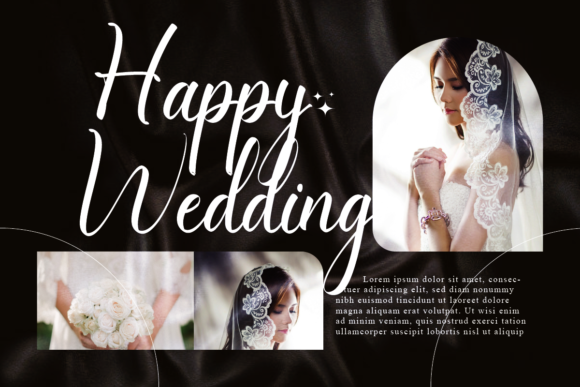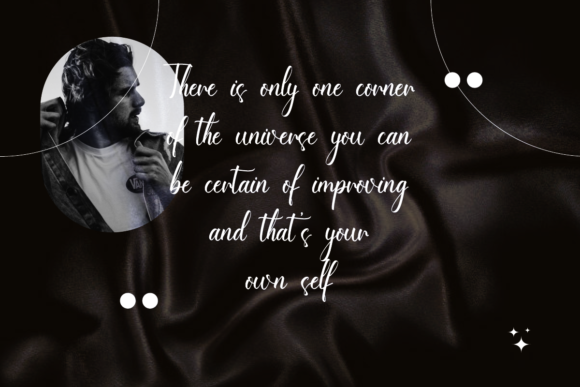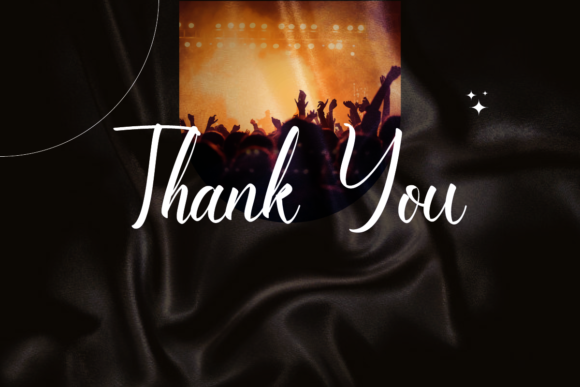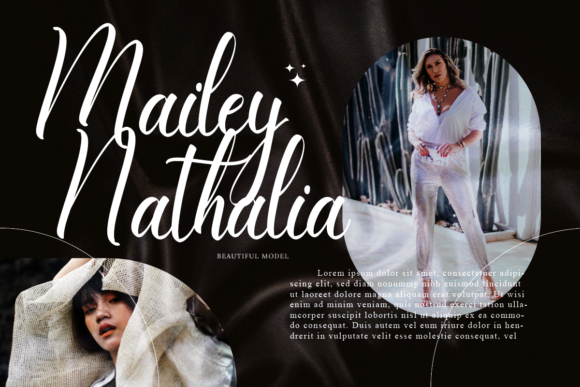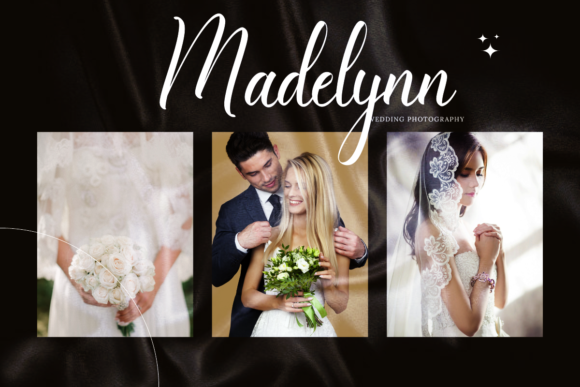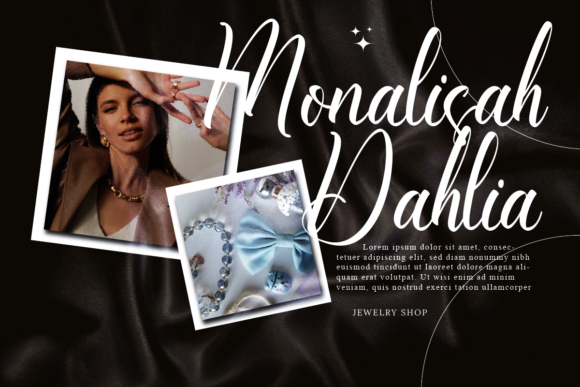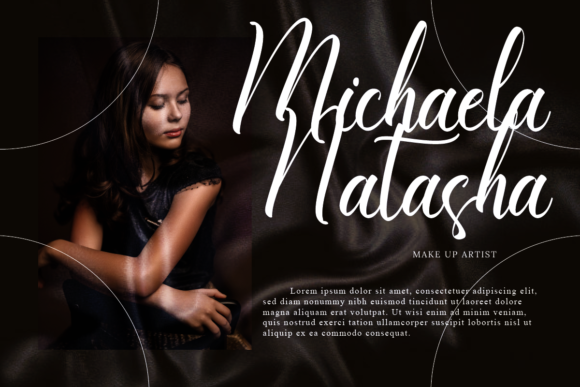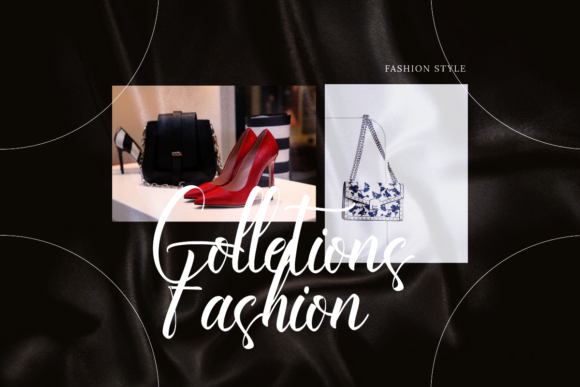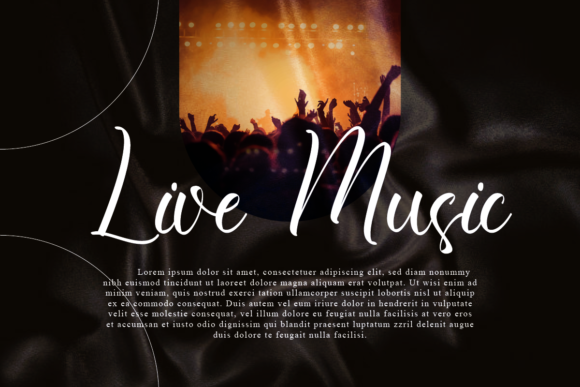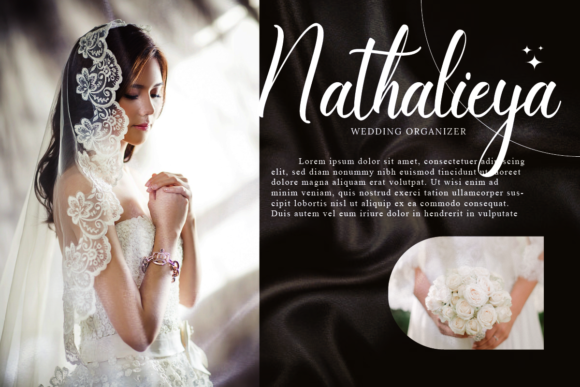
Alessandra Sabrina is a stunning and sophisticated script font that radiates timeless elegance and grace. Designed with meticulous attention to detail, this font is a perfect choice for those seeking a touch of beauty and sophistication in their design projects.
With its delicate and flowing letterforms, Alessandra Sabrina adds a sense of refinement and charm to any design. Whether you’re working on wedding invitations, luxurious branding, high-end packaging, or any project that requires a touch of class, Alessandra Sabrina delivers a sense of luxury that elevates your work to new heights.
The font’s exquisite curves and graceful lines create a harmonious and pleasing visual rhythm, making it a captivating choice for headlines, logos, and other prominent design elements. The fluidity of Alessandra Sabrina’s characters conveys a sense of movement and grace, infusing your designs with a sense of dynamism and energy.
Alessandra Sabrina’s versatility is another one of its strengths. It can seamlessly transition from formal and elegant to romantic and whimsical, allowing you to adapt it to a wide range of design themes and aesthetics. Its timeless appeal ensures that it remains a stylish choice across various design trends and eras.
Crafted with precision and a deep appreciation for aesthetics, Alessandra Sabrina is a font that caters to those who value the finer details. Its carefully designed ligatures and alternate characters provide an extra layer of customization, allowing you to create unique and personalized designs that stand out from the crowd.
Whether you’re creating wedding stationery, sophisticated branding materials, editorial layouts, or any project that requires a touch of elegance, Alessandra Sabrina is a font that will undoubtedly leave a lasting impression. Its ability to evoke a sense of refinement and sophistication makes it a valuable asset in your design toolkit, adding a beautiful and refreshing look to your creative endeavors.